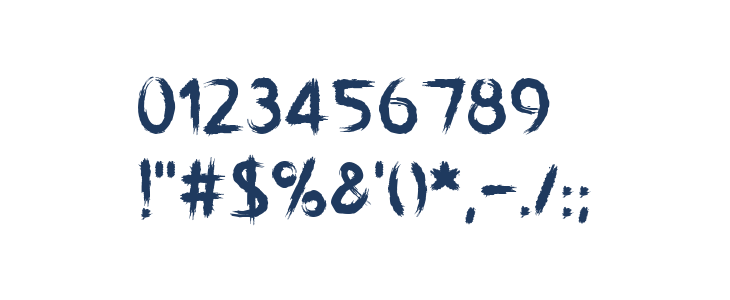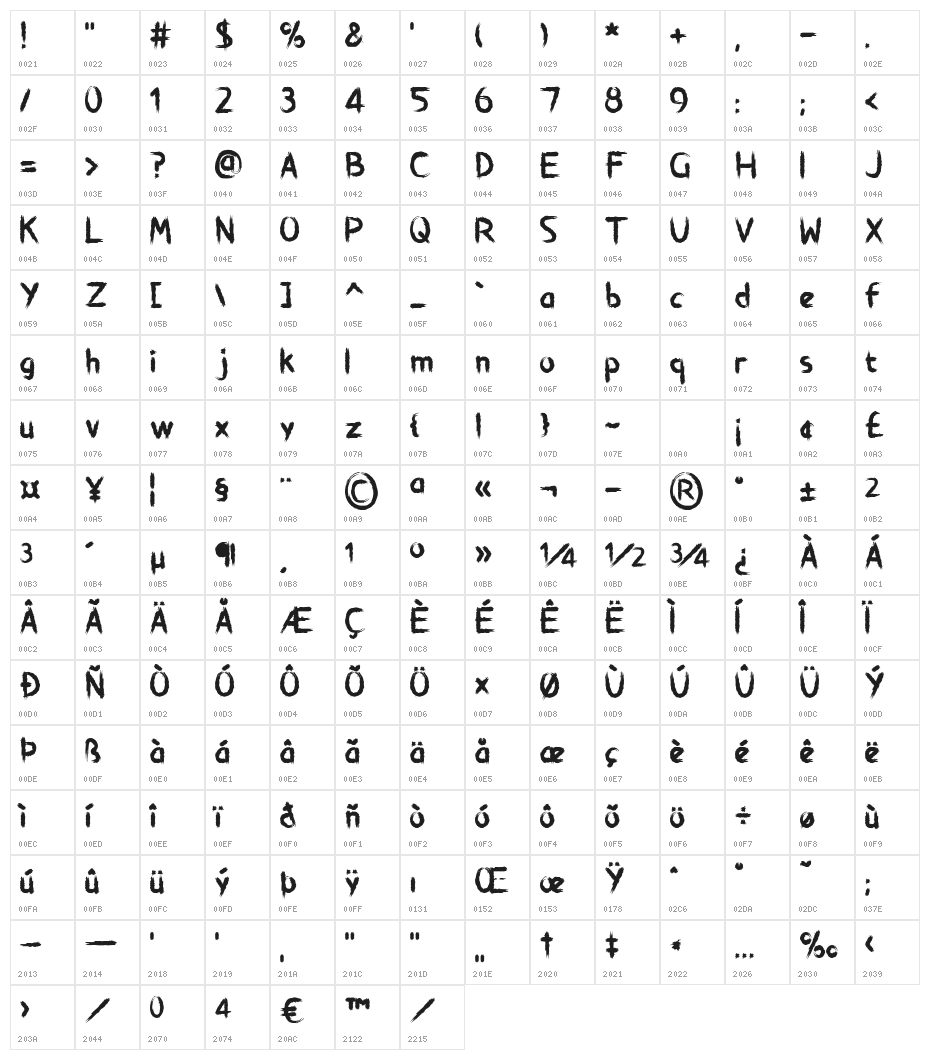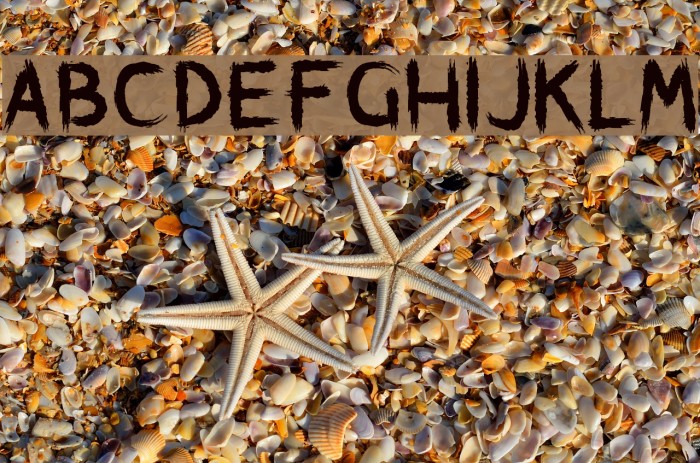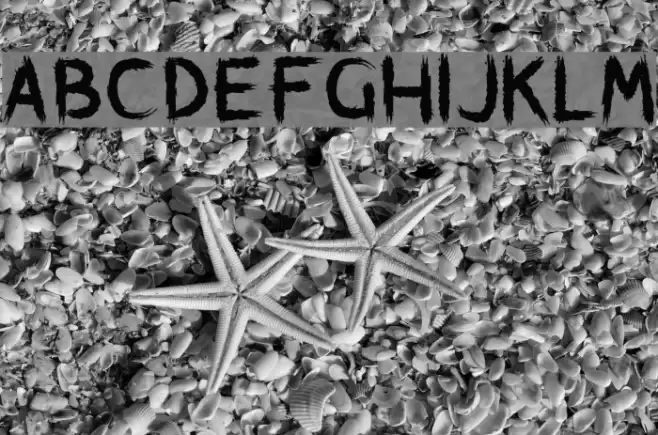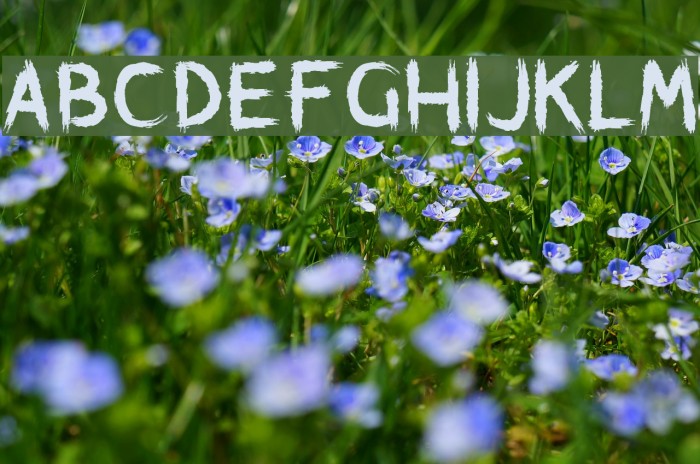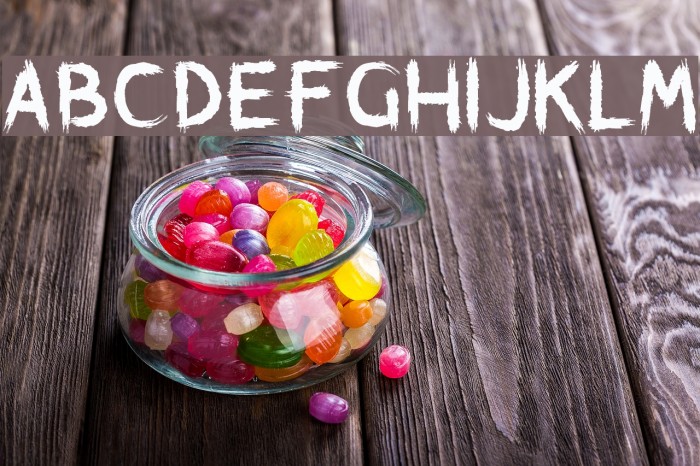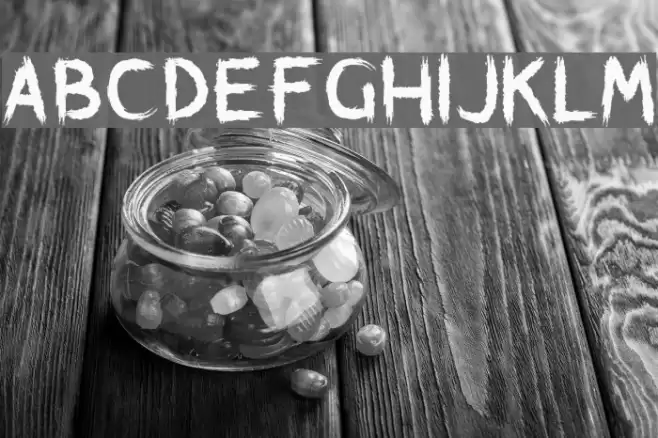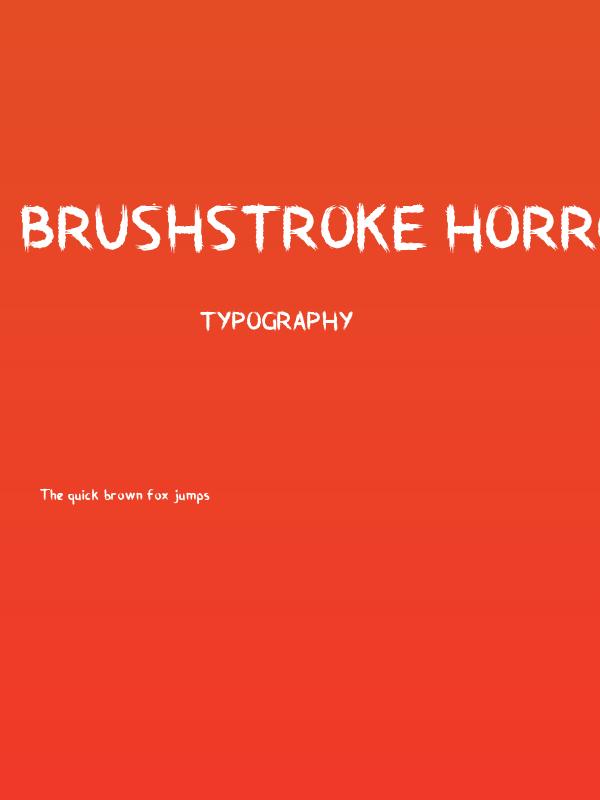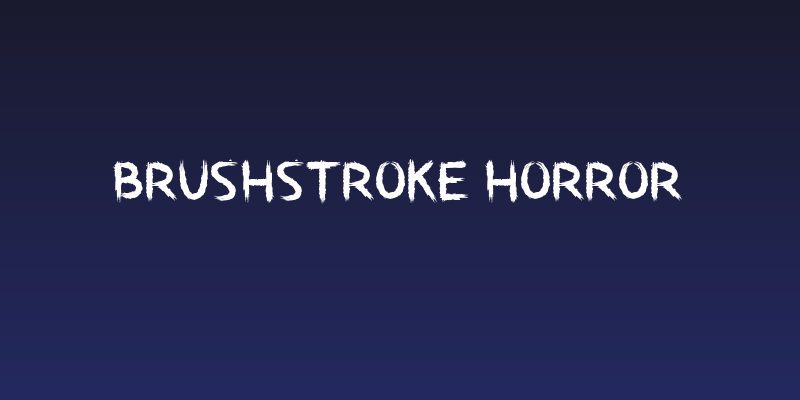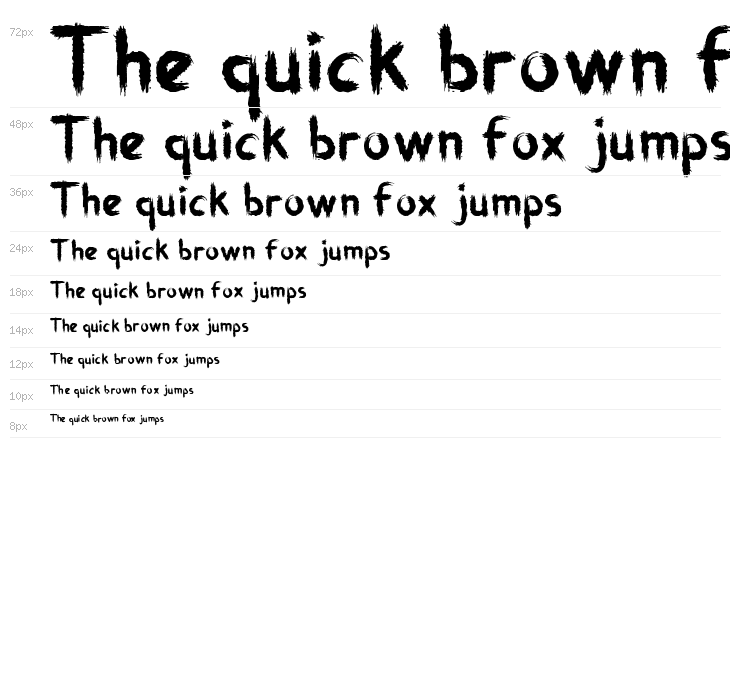
Brushstroke Horror Font
Brushstroke Horror Description
This font exudes a chilling and eerie vibe, reminiscent of horror movie titles. The letters are crafted with a brushstroke effect, giving them a jagged and uneven appearance that adds to the unsettling aesthetic. The strokes are bold and irregular, creating a sense of movement and chaos. The uppercase and lowercase characters maintain a consistent style, with sharp edges and varying thickness that mimic the look of hastily painted letters. Numbers and special characters follow the same design, ensuring a cohesive look across all text elements. This font is perfect for projects that require a dramatic and spooky touch.
| Proposed Projects | Ideal for horror movie posters, Halloween event flyers, spooky-themed merchandise, and book covers. |